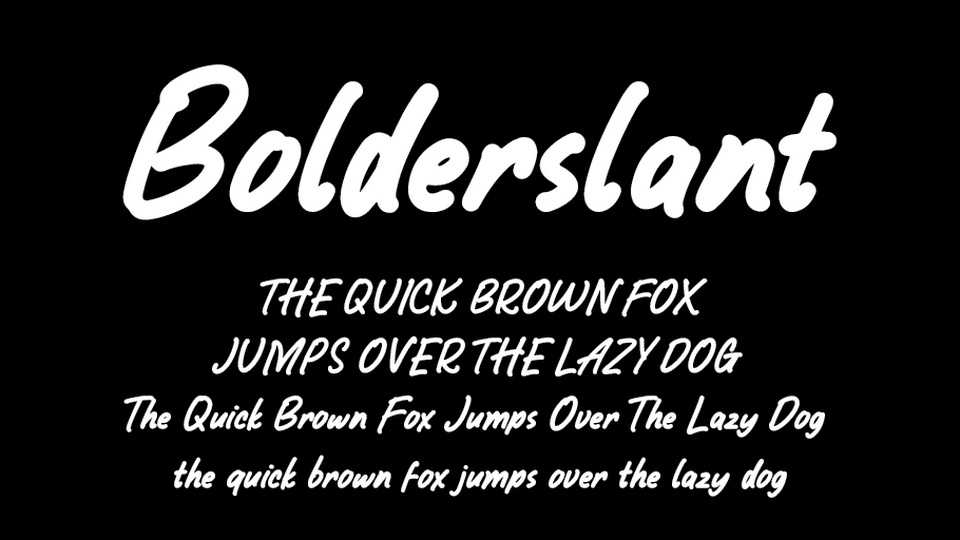
Download Bolderslant font, just a handwritten typeface with thick line and slant style. Bolderslant is great for quotes, notes, social media and any project that needs a hand crafted look.
Designer: alphart